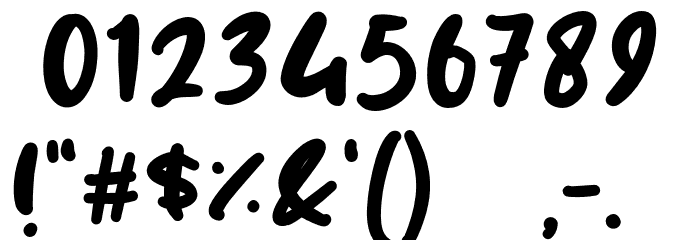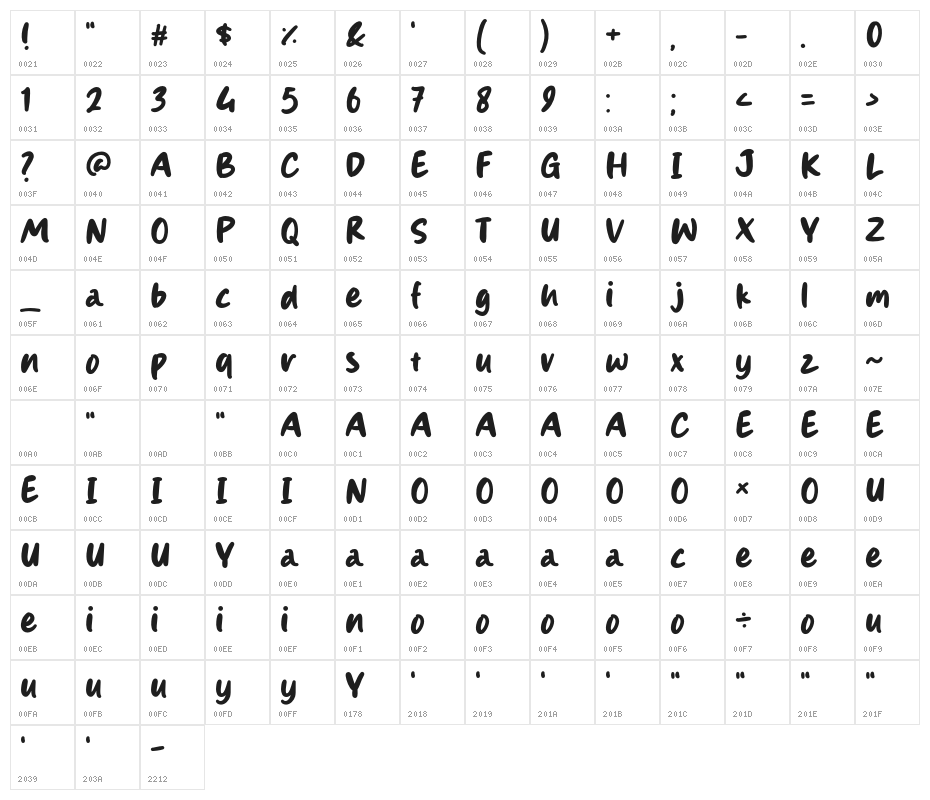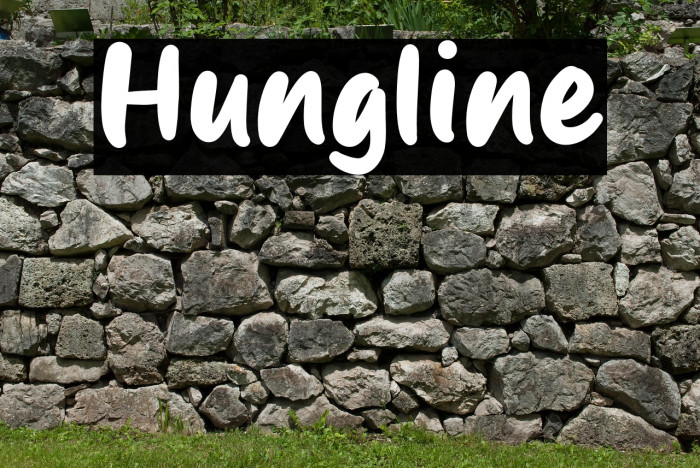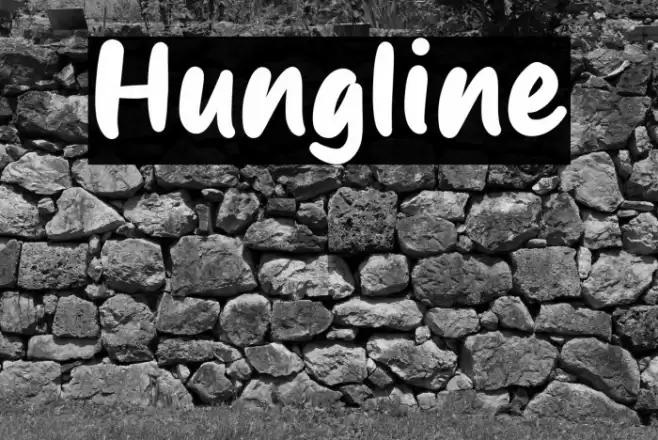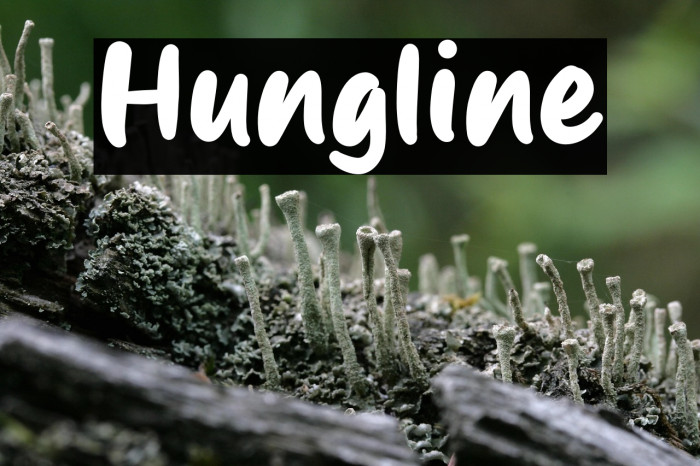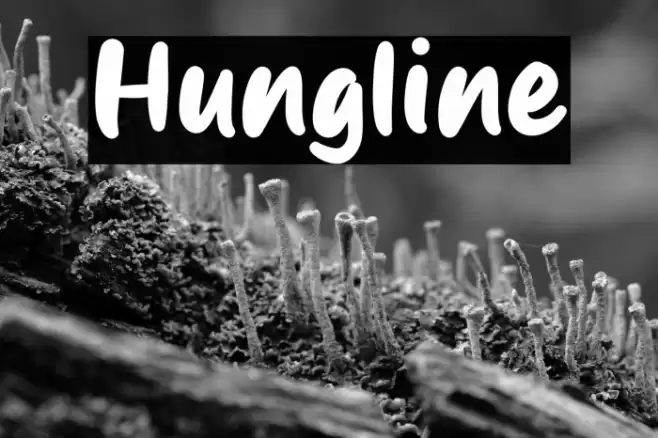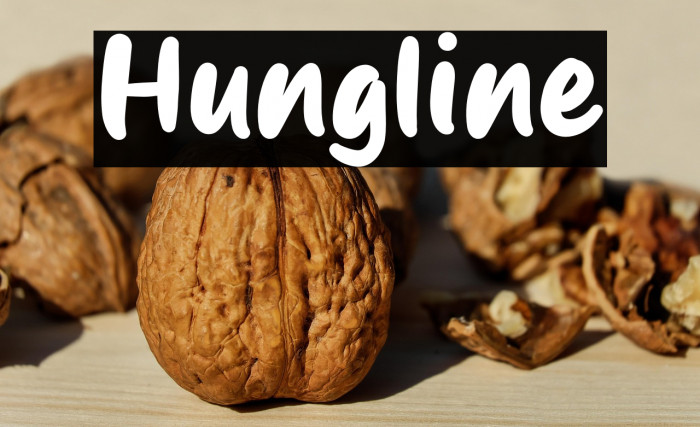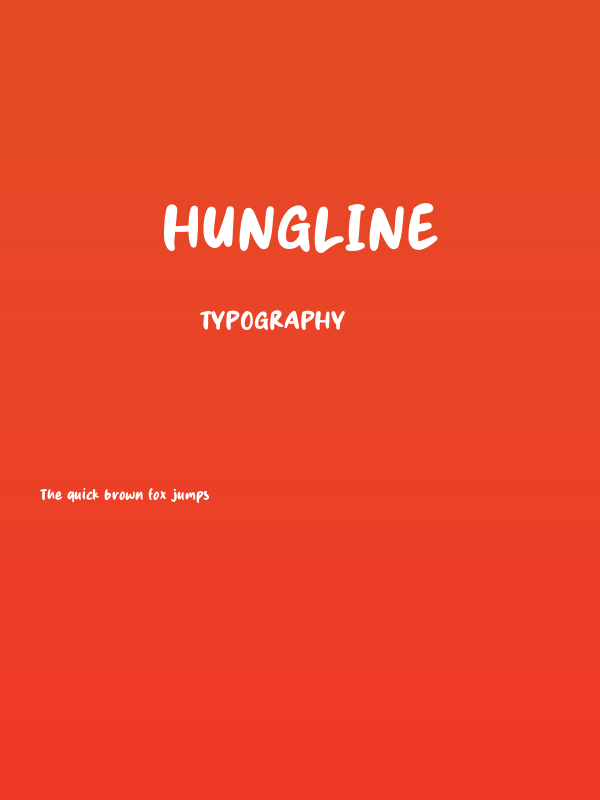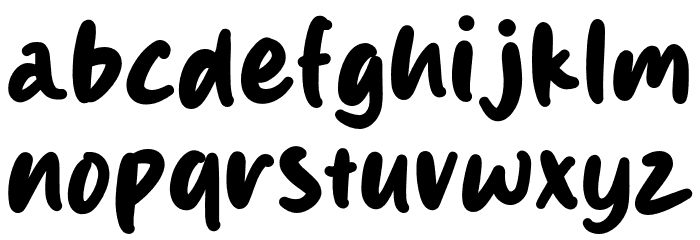
Hungline Font
Hungline Description
This font exhibits a bold, handwritten style with a playful and informal appearance. The characters are rounded and slightly irregular, giving it a casual and friendly feel. The uppercase and lowercase letters maintain a consistent style, with smooth curves and a moderate thickness that ensures readability. The numbers and special characters follow the same design principles, making them cohesive with the alphabet. The font's overall look is energetic and dynamic, suitable for projects that require a personal touch.
| Overall Style | Casual, Playful |
| Use Case | Logos, Headlines, Informal Text |
| Proposed Projects | Ideal for greeting cards, children's books, casual branding, and social media graphics. |